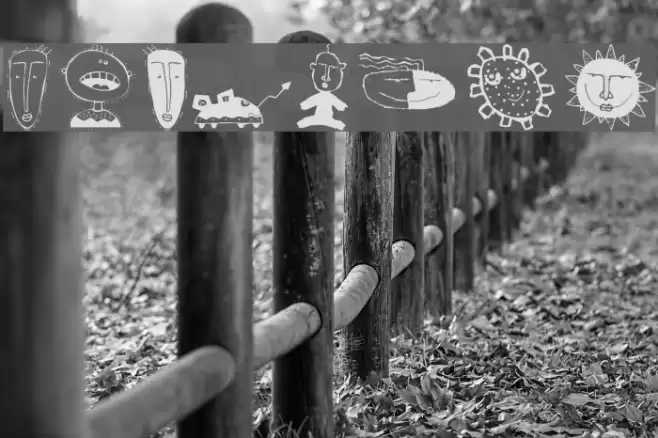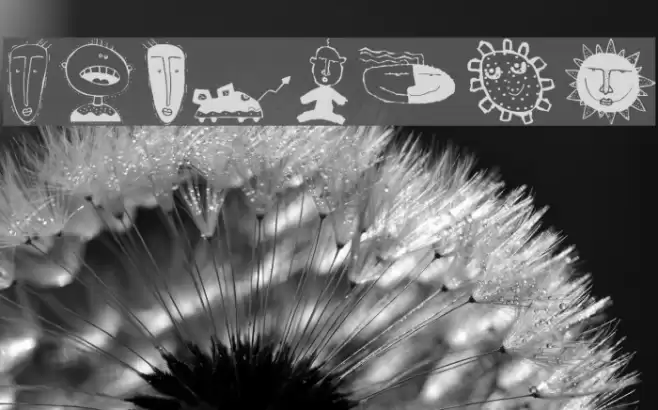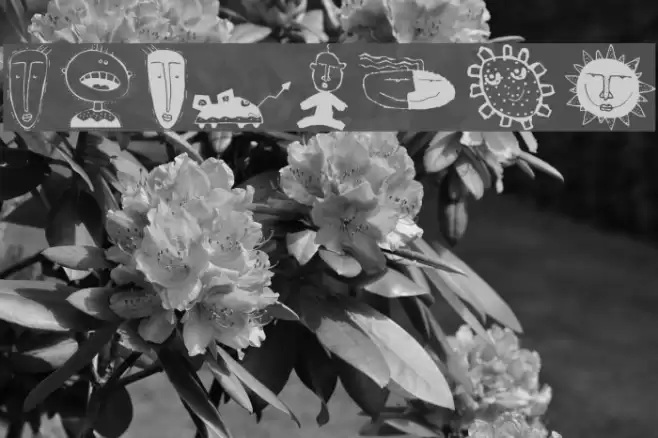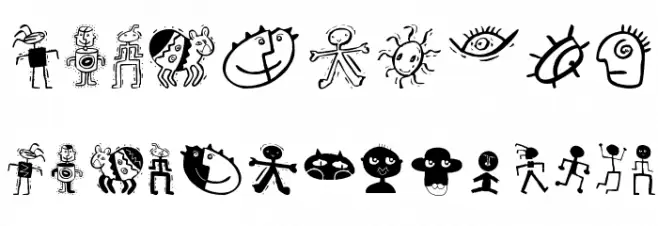
PopArtes Font
PopArtes Description
This is a highly decorative and artistic font that features a series of unique, abstract characters and symbols. Each character is designed with a playful and whimsical style, incorporating elements of pop art and abstract expressionism. The characters are not traditional alphanumeric symbols but rather a collection of imaginative figures and shapes that convey a sense of creativity and artistic flair. The font is characterized by its bold lines and intricate details, making it suitable for projects that require a distinctive and eye-catching visual element.
A decorative font featuring abstract, artistic characters with a playful pop art style from Uncategorized fonts.
- Proposed Projects: Ideal for creative projects such as art posters, album covers, or any design work that seeks to incorporate a unique and artistic flair.
- Use Case: Logos, Art projects, Posters